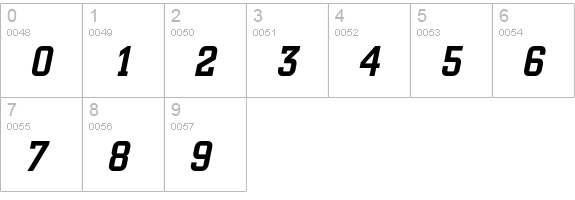
Geo 957 Bold Italic is a strong, high-contrast, italic variant in the Geo typeface family \xE2\x80\x94 well suited to headlines, attention-grabbing titles, and strong calls-to-action.
Geo 957 Bold Italic font is a modern and stylish typeface that exudes confidence and sophistication. Its bold and italic characteristics make it a versatile choice for a wide range of design projects, from branding to editorial layouts. The sleek geometric shapes and sharp lines of this font create a strong visual impact, perfect for making a statement. What's even better is that Geo 957 Bold Italic font is available for free download at FontsMarket.com. This means you can easily access this high-quality typeface without any cost, making it a valuable addition to your font collection. Don't miss out on the opportunity to enhance your designs with the bold and dynamic Geo 957 Bold Italic font today!